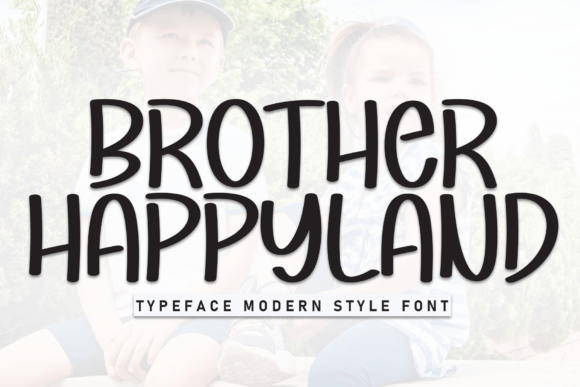
Discover the Delightful World of Brother Happyland Font
Have you ever been in the middle of a design project, and suddenly, you’re stuck on finding the perfect font? I recall a recent experience while working on a bespoke wedding invitation for a dear friend. The design was almost complete, but something was missing – a font that could capture the warmth and playfulness of the couple’s personalities. That’s when I stumbled upon the charming Brother Happyland Font! ✨
A Personal Review of Brother Happyland Font
I’m thrilled to share my honest review of this delightful handwritten display font.
- ✨ Its warm and friendly vibe, perfect for designs that require a light-hearted tone
- ✅ Effortlessly whimsical and adorable, adding a fun touch to various design creations
- 🎉 Suitable for a wide range of projects, from bespoke wedding invitations to personalized greeting cards
- 👍 Highly legible, even at smaller font sizes
- 🤔 Limited suitability for formal or corporate designs, as it’s quite playful and casual
- ⚠️ Some characters may appear a bit narrow, which could affect kerning in certain situations
The Story Behind Brother Happyland Font
Brother Happyland Font was crafted with love by a talented type designer who aimed to create a font that would bring joy and playfulness to various design projects. Inspired by the charm of handwritten letters and the whimsy of children’s illustrations, this font is sure to delight designers and crafters alike!
| What type of designs is Brother Happyland Font best suited for? | Brother Happyland Font is perfect for designs that require a warm, friendly, and playful tone, such as bespoke wedding invitations, personalized greeting cards, and other creative projects. |
| Is Brother Happyland Font suitable for body text? | While Brother Happyland Font is highly legible, it’s primarily designed for display purposes. For body text, consider using a font with better readability and flow. |
| Are there any OpenType features available in Brother Happyland Font? | Yes, Brother Happyland Font offers various OpenType features, including stylistic alternates, which can add more flair to your designs. |